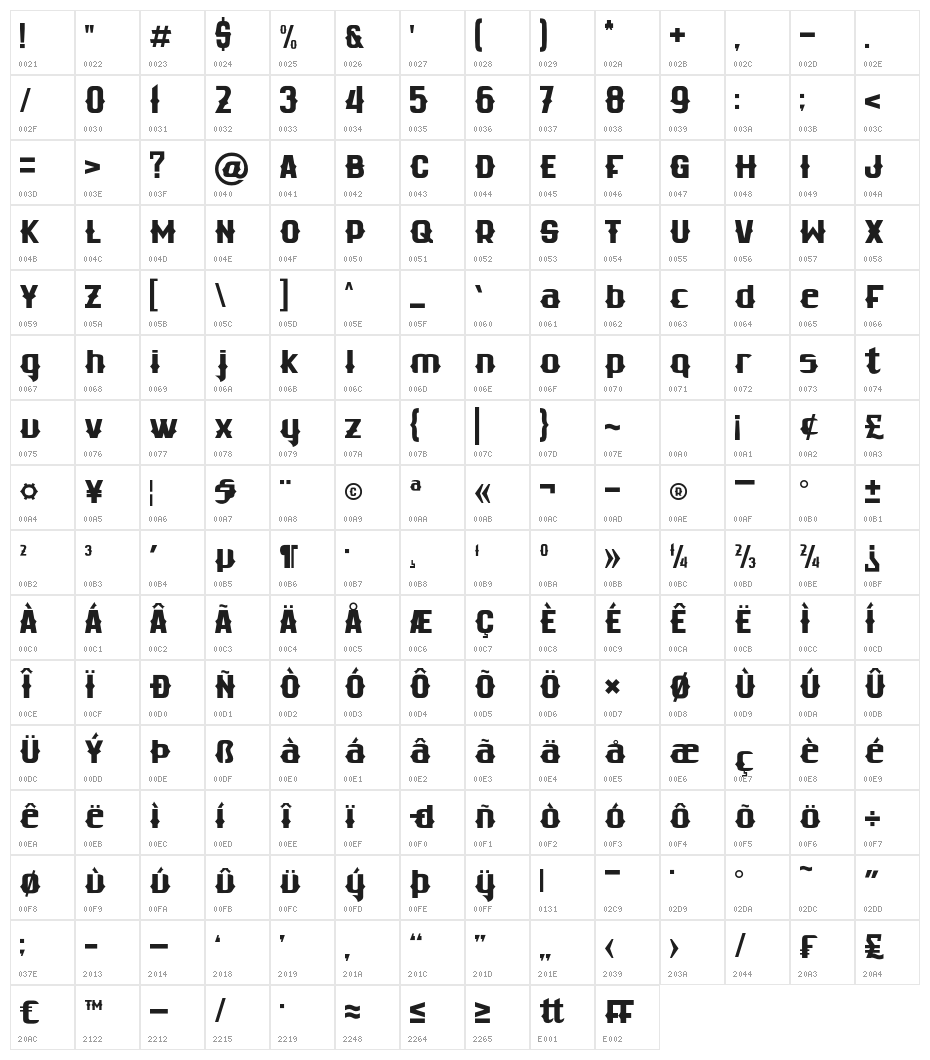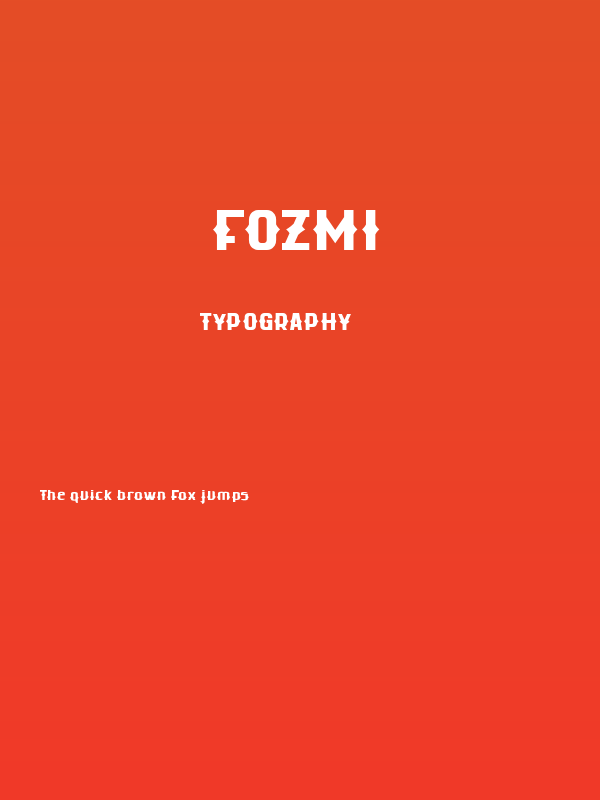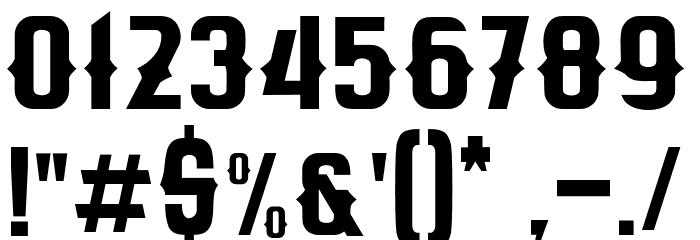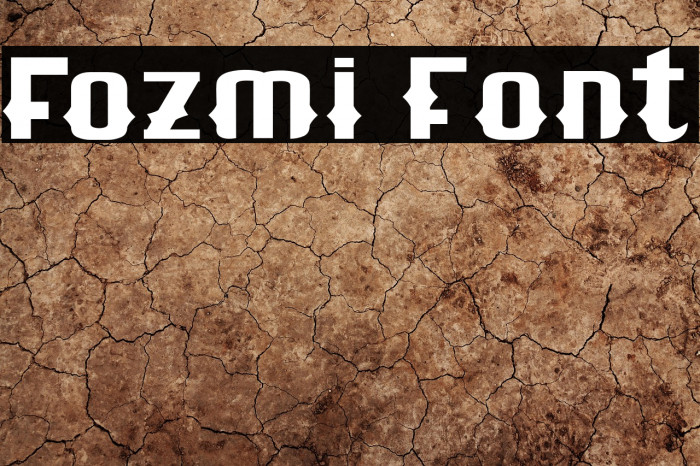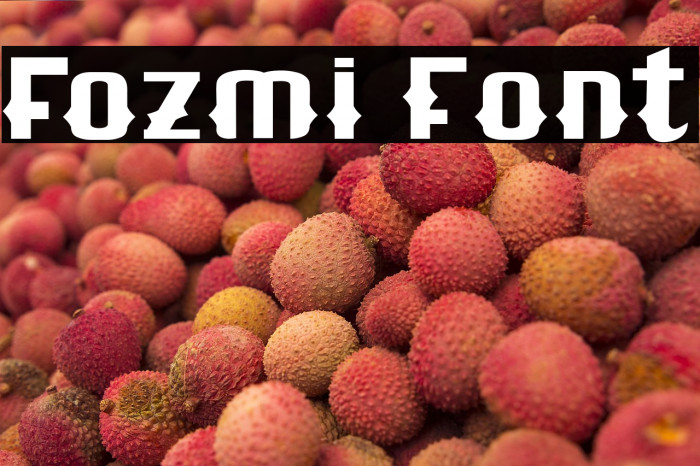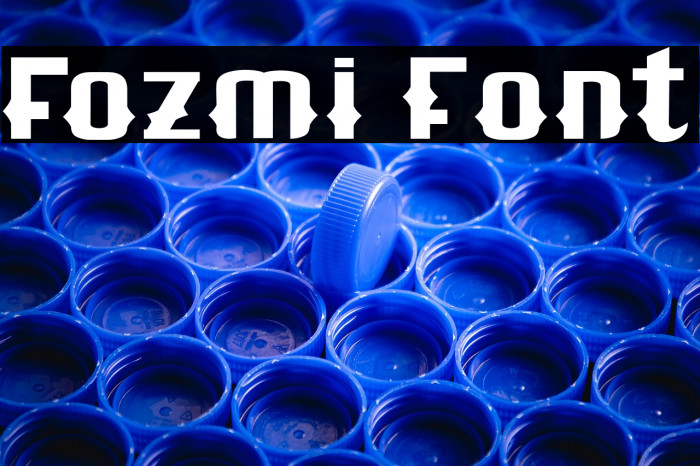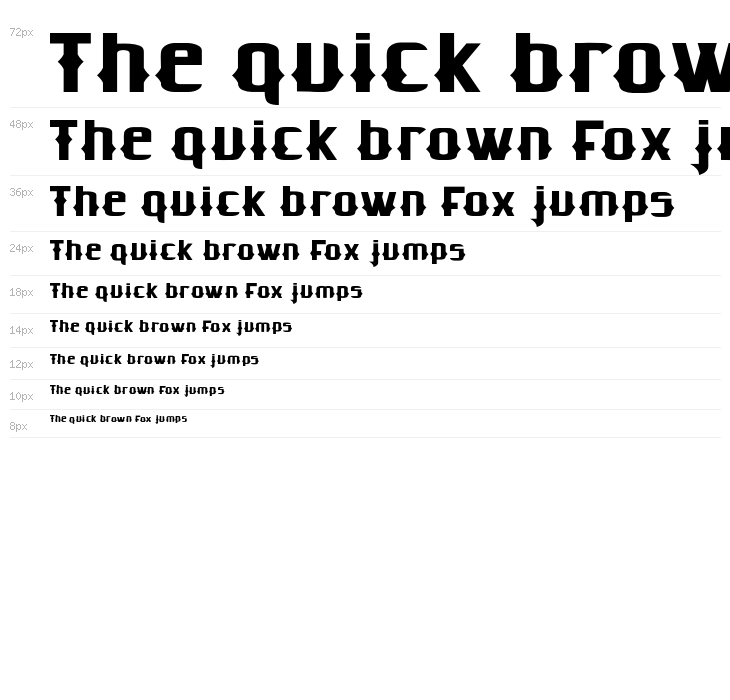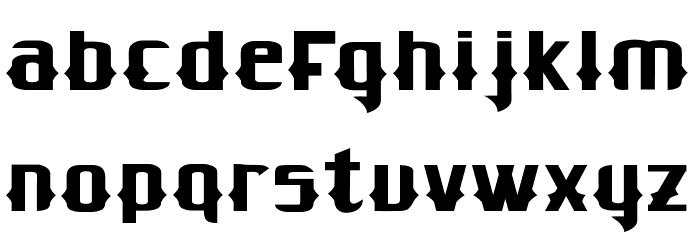
fozmi Font
fozmi Description
This font features a bold and striking design with a distinctly modern and geometric style. The characters are constructed with sharp angles and unique cutouts, giving them a futuristic and industrial appearance. The uppercase and lowercase letters maintain a consistent height, creating a uniform look across the typeface. Numbers and special characters follow the same design principles, ensuring a cohesive aesthetic. The font's boldness and distinctive shapes make it ideal for attention-grabbing headlines and logos, where a strong visual impact is desired.